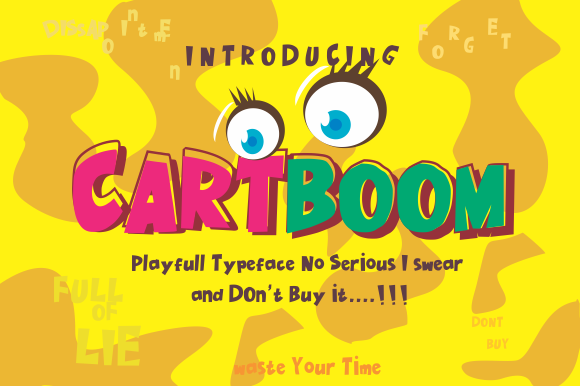
The Cartboom Font: Adding a Touch of Whimsy to Your Designs
I’ll never forget the time I was working on a project for a children’s birthday party invitation. I had the design concept all sorted out, but I was struggling to find the perfect font to bring it all together. That’s when I stumbled upon the Cartboom font, and it was love at first sight! 😍 The playful, cartoon-like feel of this font instantly captured the essence of a fun and lively celebration.
An Honest Review of Cartboom Font
What I Love About Cartboom Font
- ✨ Playful and fun design that’s perfect for kids’ projects, logos, invitations, and more
- 💥 Great for adding a touch of humor and whimsy to your designs
- 🎉 Available in various weights and styles to suit different design needs
While Cartboom font is an amazing addition to any design project, there are a few things to keep in mind: 🤔
- ⚠️ Limited use of OpenType features, which might be a drawback for some designers
- ⚠️ May not be the best choice for body text or long-form content due to its playful nature
The Designer Inspiration Behind Cartboom Font
The story behind Cartboom font is one of creativity and experimentation. The designer, inspired by the world of cartoons and comics, set out to create a font that would capture the essence of fun and playfulness. Through a process of trial and error, the designer refined the font to create a unique and eye-catching design that’s perfect for a wide range of projects.
Q: What type of projects is Cartboom font best suited for?
A: Cartboom font is perfect for kids’ projects, logos, invitations, and any design that needs a touch of humor and whimsy.
Q: Is Cartboom font available in different weights and styles?
A: Yes, Cartboom font comes in various weights and styles, making it versatile and adaptable to different design needs.